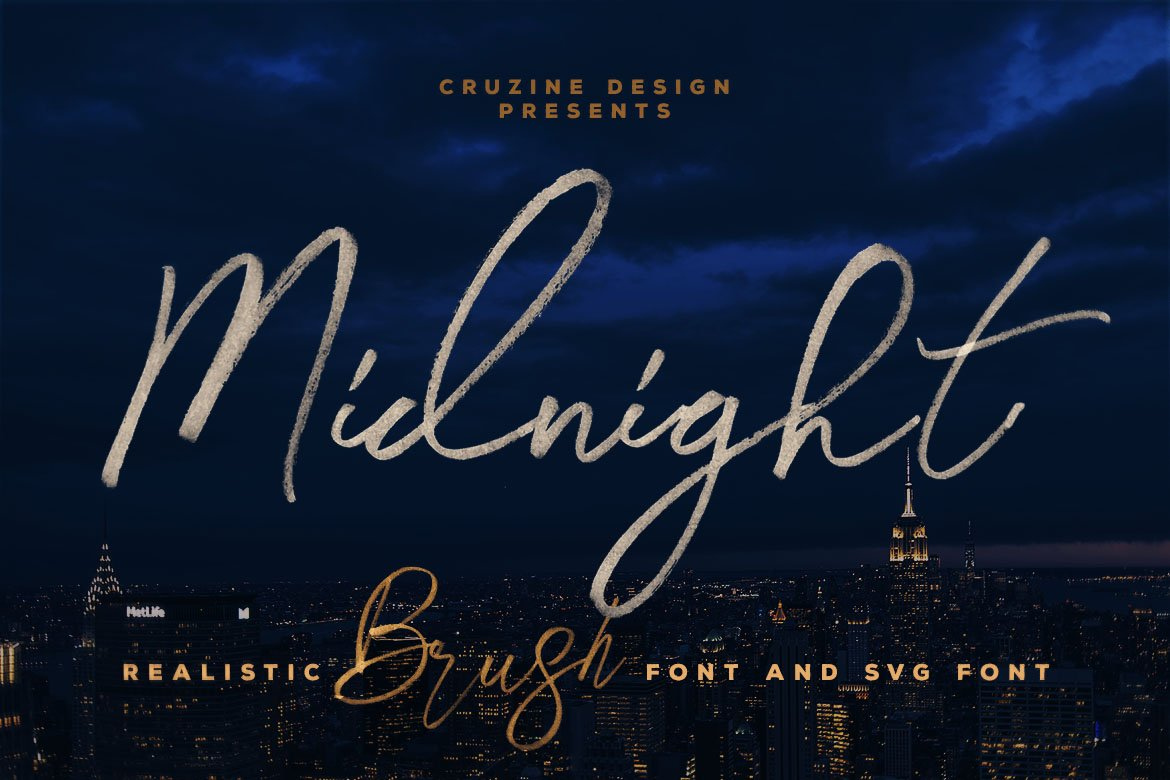
Midnight Brush & SVG Font
Midnight Brush & SVG Font is perfect for atmospheric nightclub branding, mysterious gothic designs, dramatic movie titles, edgy fashion labels, nocturnal music venues, dark romance novels, sophisticated cocktail bars, artistic tattoo studios, moody photography studios, and enigmatic lifestyle brands.
Midnight Brush & SVG Font creates excitement because it embodies the mysterious allure and dramatic sophistication of after-dark creativity with its expressive brush letterforms and night-inspired character design. The font's flowing strokes and nocturnal aesthetic instantly convey artistic mystery and dramatic elegance, making any brand appear intriguingly sophisticated and authentically atmospheric. Its carefully crafted midnight details and brush-painted character create an immediate sense of nocturnal artistry that captivates audiences seeking mysterious experiences, dramatic quality, and products that celebrate the transformative power of nighttime creativity and artistic expression.